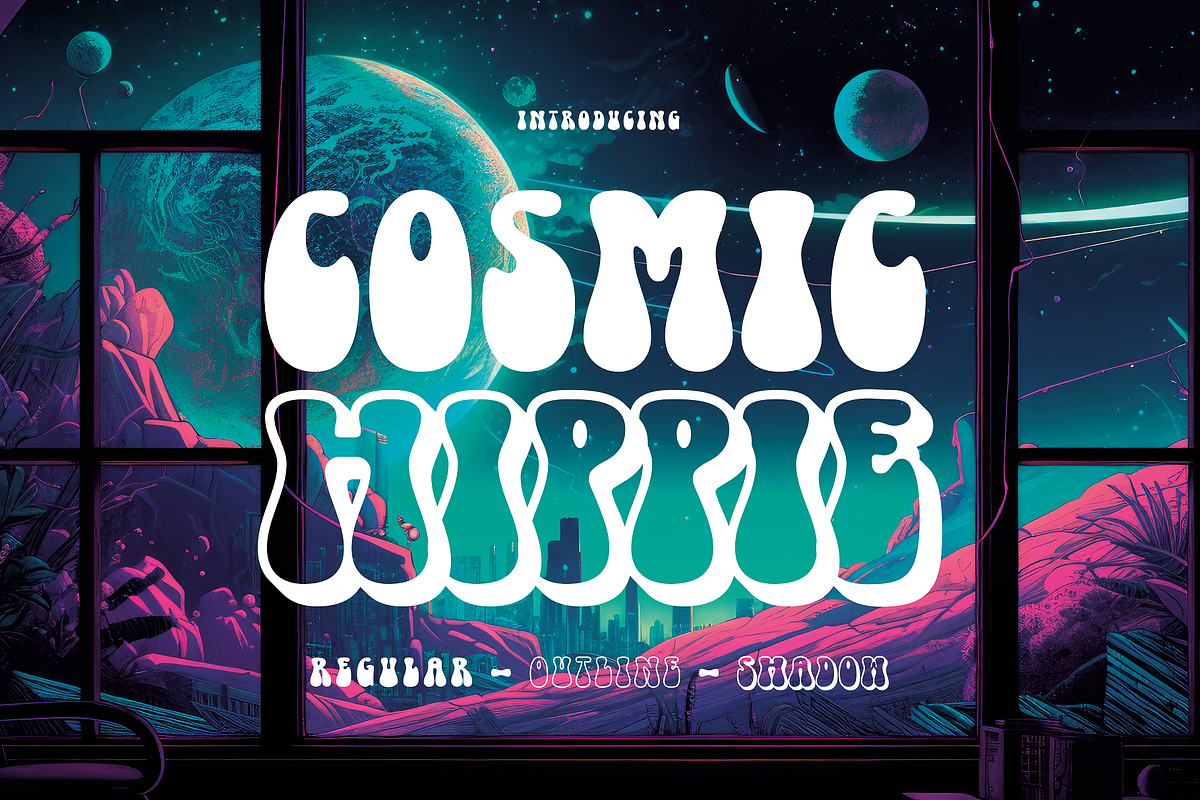
Cosmic Hippie – Groovy Font Free Download is a fun and vibrant typeface inspired by the psychedelic and free-spirited style of the '60s and '70s. With its bold curves, playful letterforms, and funky aesthetic, this font is perfect for retro-themed projects, music posters, festival graphics, logos, and any design that needs a groovy vibe.
Its unique and expressive design adds personality and warmth to your work, whether you're designing for a retro brand, a music event, or a fun project. Cosmic Hippie brings energy and creativity to your typography with every letter.